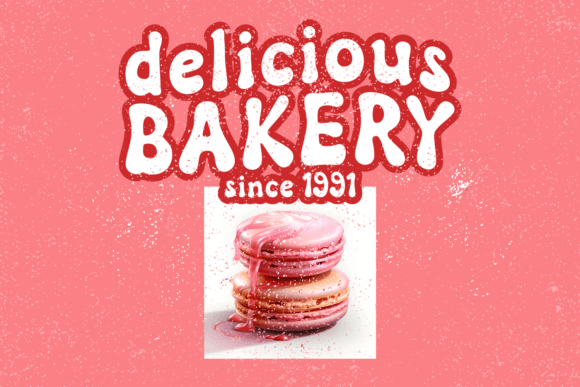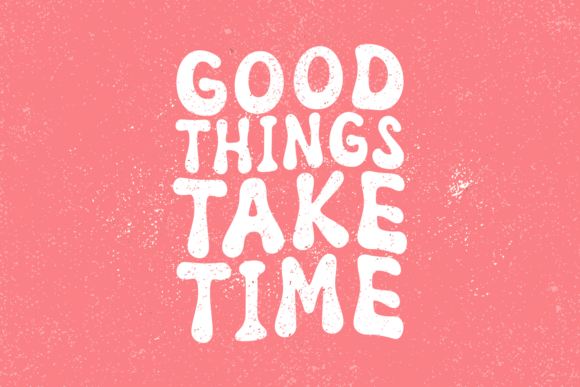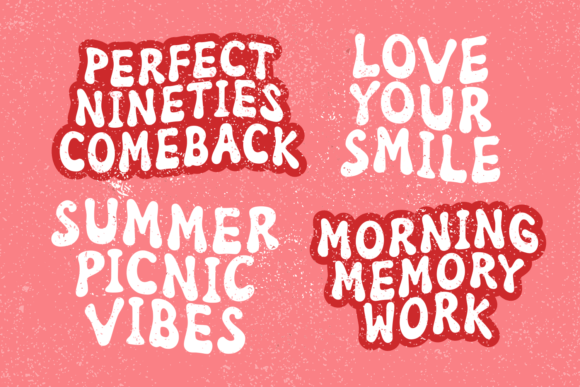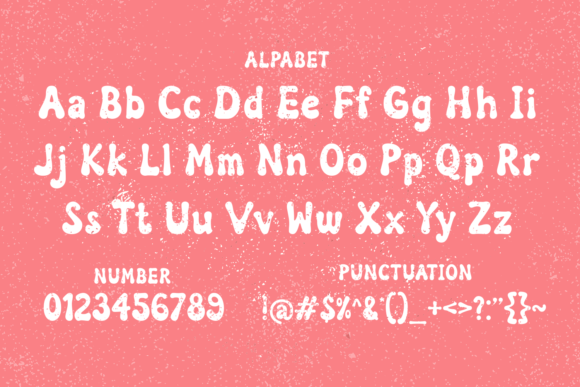
Introduction to Daddy Nineties Font
Daddy Nineties is a cute, groovy display font that brings a fun, retro vibe to your designs.
It has a playful and charming look, perfect for giving your projects a nostalgic 90s feel .